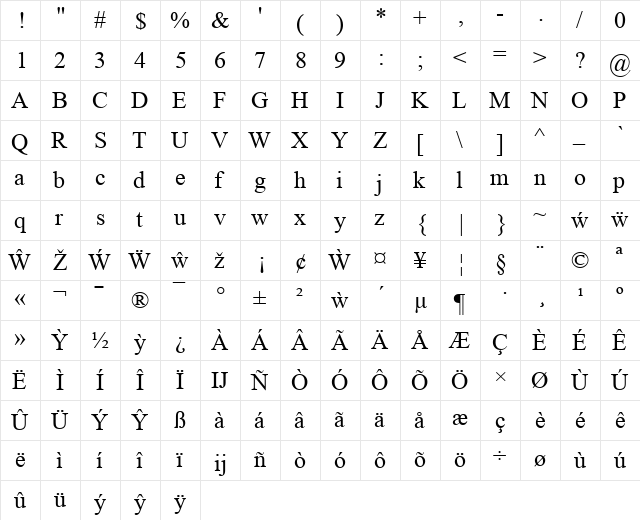
Pryd Euro-Cymraeg Regular Font Preview
Pryd Euro-Cymraeg Regular
Design Context for Pryd Euro-Cymraeg Typeface
Pryd Euro-Cymraeg offers clean, dependable letterforms without strong stylistic allegiance, making it a practical choice for designers who need flexibility.